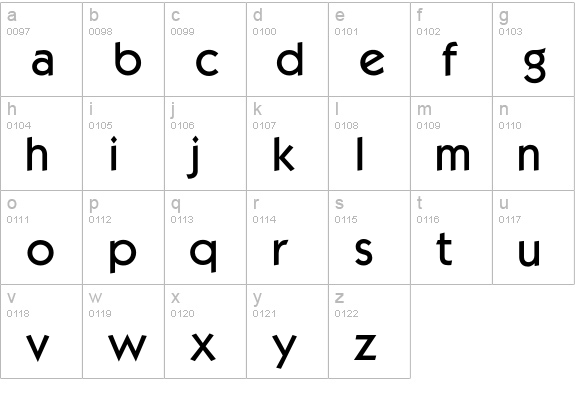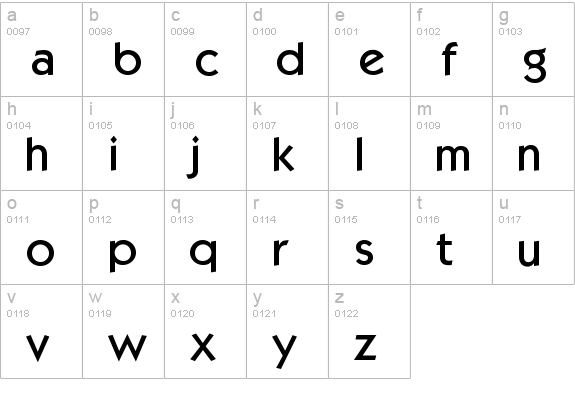
KabelMedium Font Details
KabelMedium is a modern and versatile font that effortlessly combines elegance with readability. With its clean lines and balanced letterforms, this typeface is perfect for both print and digital design projects. Its medium weight strikes the ideal balance between boldness and subtlety, making it suitable for a wide range of applications. The KabelMedium font offers a timeless appeal that adds a touch of sophistication to any design. Whether you're designing a logo, creating a website, or crafting a beautiful invitation, this font will elevate your work to new heights. Its legibility ensures that your message is conveyed crystal clear, while its unique personality adds a touch of character and charm. One of the best things about KabelMedium font is that it is freely available to download at FontsMarket.com. This means that you can access this exceptional font without any cost, making it an incredible resource for designers on a budget. Its availability for free download allows you to enhance your designs without breaking the bank. With a wide range of characters and language support, KabelMedium font is suitable for various design projects around the globe. Its versatility and flexibility make it a go-to choice for designers who value both aesthetics and functionality. Whether you're working on a corporate branding project or a personal creative endeavor, this font will undoubtedly leave a lasting impression. In conclusion, KabelMedium font is a remarkable typeface that combines elegance, readability, and versatility. Its medium weight strikes the perfect balance, ensuring that your designs stand out while maintaining legibility. And the best part? You can download it for free at FontsMarket.com, allowing you to add a touch of sophistication to your projects without spending a dime.